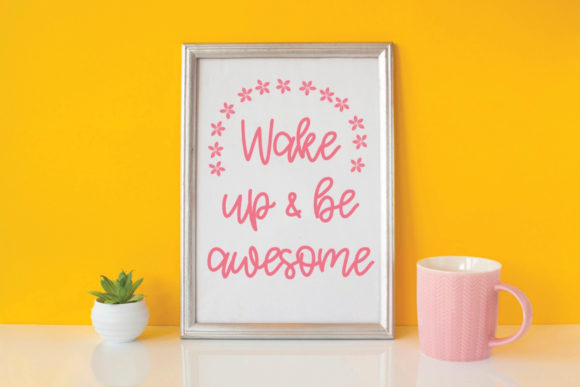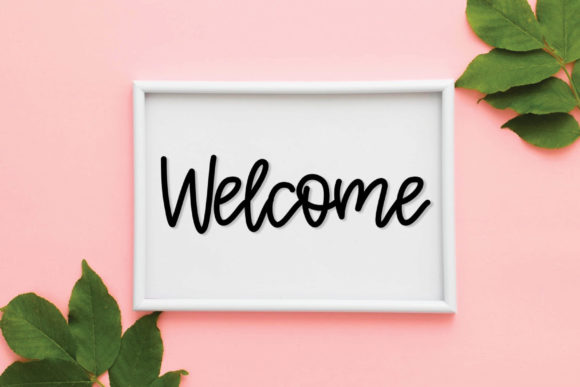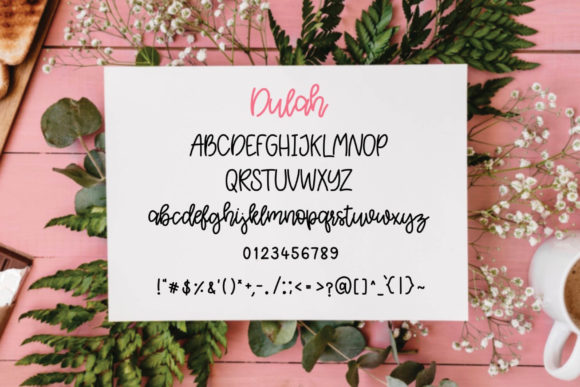
About Dulah Font
Dulah results out of a stunning pairing of a brush pen and pencil that makes it look incredibly endearing and authentic. Use this gorgeous and unique handwritten font to bring any DIY project to life!